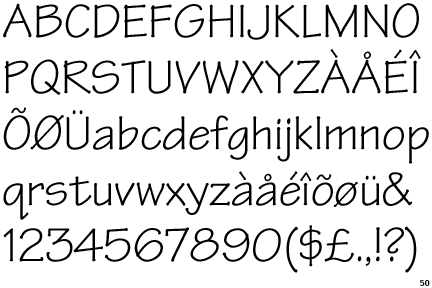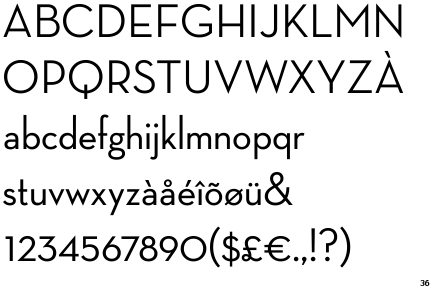
leekohler macrumors G5 Mar 8, 2011 #51 yayitsezekiel said: I love Neutraface Display. I have it on my iPhone too. Click to expand... Oh- I do like that a lot.
logana macrumors 65816 Mar 9, 2011 #52 Have always liked Tekton Based on the hand-lettering of Seattle-based architect and author Francis D.K. Ching.
yayitsezekiel macrumors 6502a Mar 9, 2011 #54 logana said: Have always liked Tekton View attachment 275087 Based on the hand-lettering of Seattle-based architect and author Francis D.K. Ching. Click to expand... That's a neat font. It looks like a mix between comic sans and marker felt.